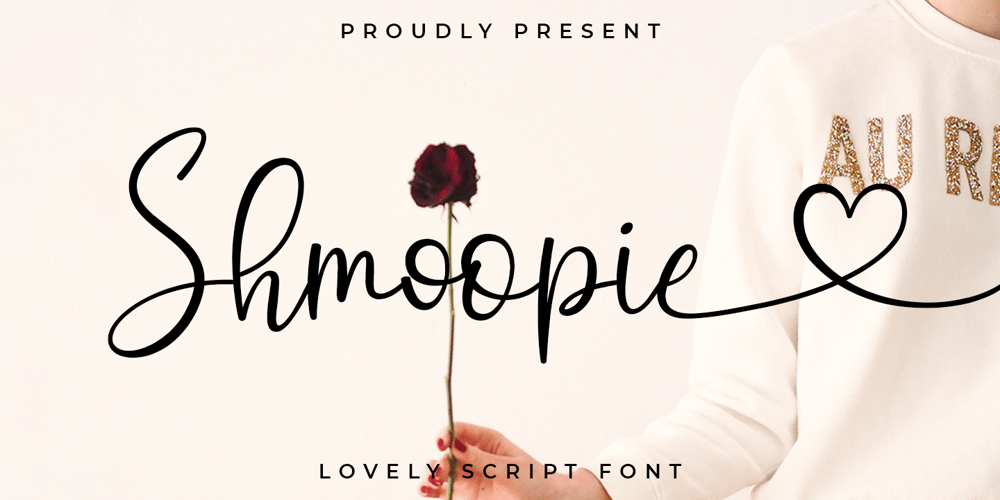
Shmoopie Font Family was designed by Hamzah Muhamad Ihsan and published by Typesthetic Studio. Shmoopie contains 1 styles and family package options. Shmoopie is a modern calligraphy font with handwritten, sophisticated flows. It is full of hearts and glyphs. Shmoopie perfect for logos, wedding stationery, cards, gift designs, photography, watermark, product packaging and handwritten quotes. This font also includes stylistic set, ligature, full set of uppercase and lowercase letters, multilingual symbols, numerals and punctuation.